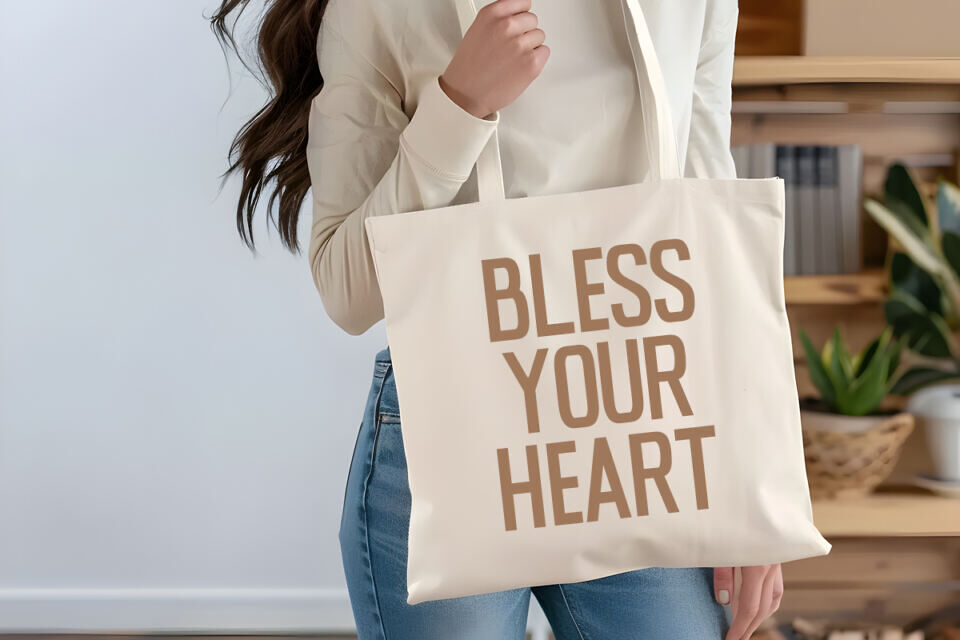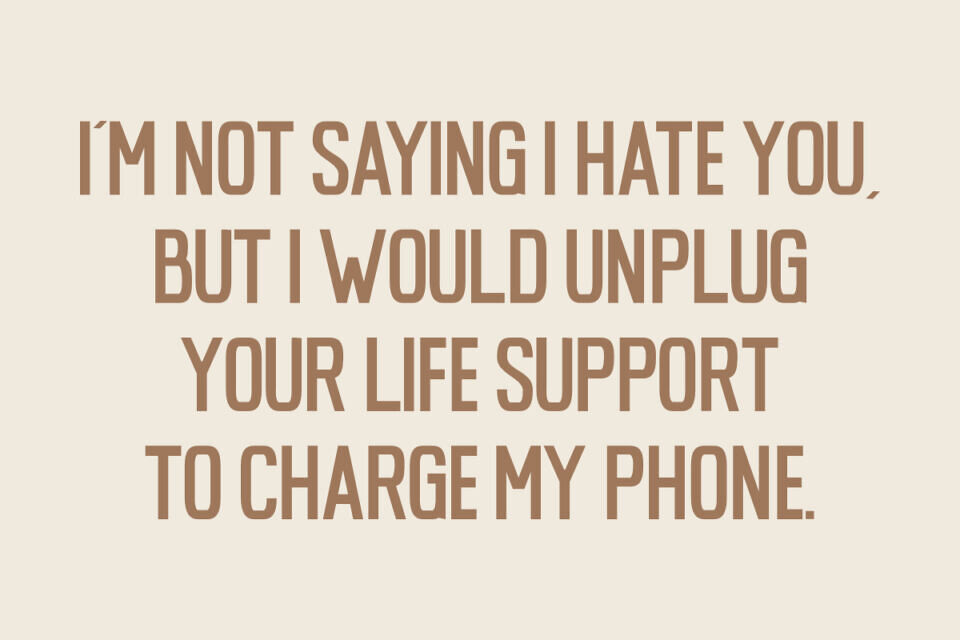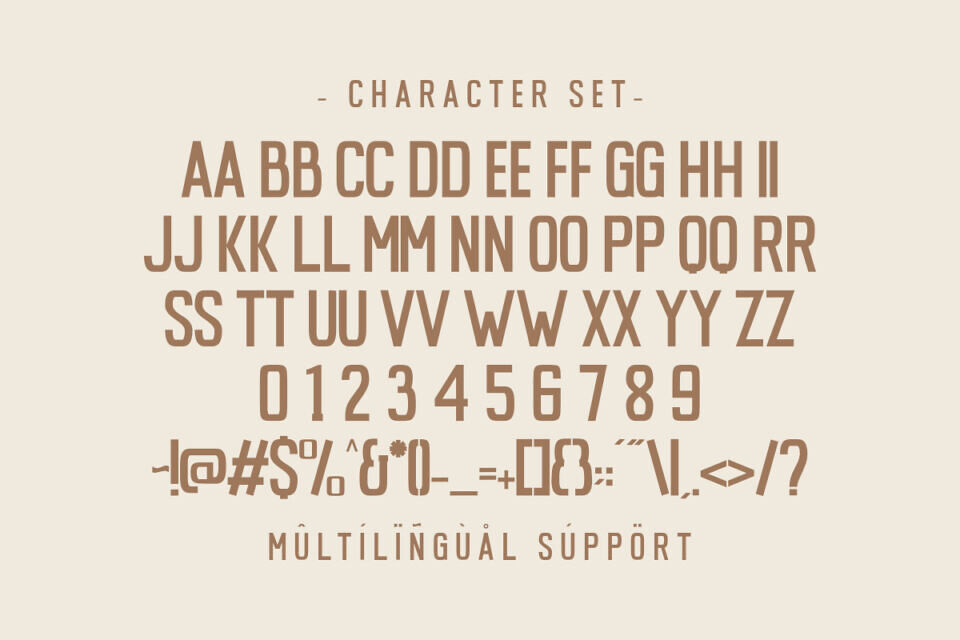
Moskov Font
Moskov is a sleek and modern sans serif font that offers a sophisticated yet strong presence for a multitude of design projects. Its clean lines and robust character make it an excellent choice for crafters, sublimation artists, and creators active on platforms like Etsy and Cricut, especially when a contemporary and impactful aesthetic is desired.
This highly versatile font excels in applications such as stylish t-shirt designs, custom mugs and tumblers, unique digital prints, eye-catching signage, professional branding, engaging social media graphics, and a wide array of other merchandise and craft items. Its clarity and modern appeal ensure your designs stand out with elegance and purpose.